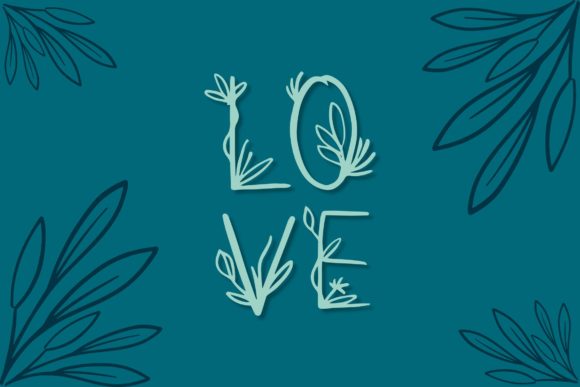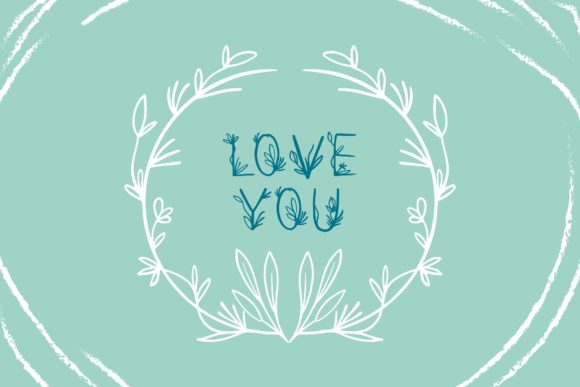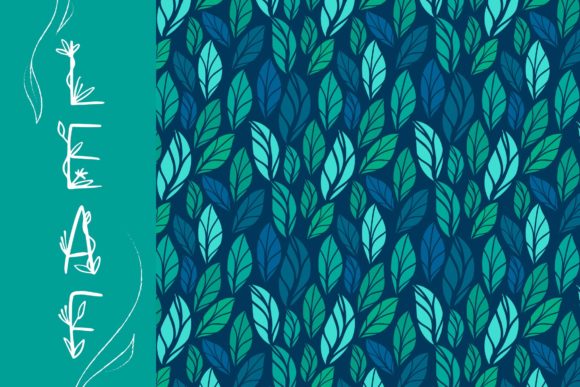
Foliagis Font – Free Download
Introduction to Foliagis Font
Foliagis is a beautiful display font with floral style.
You can see leaves and flourish elements on font characters This font is suitable for designing previews and covers, florist logo designs, shirt designs, and other graphic needs.
Key Features of Foliagis Font
Why Choose Foliagis Font?
Foliagis Font offers exceptional quality and versatility, making it a valuable addition to your design toolkit. Whether you’re creating for personal projects or commercial use, Foliagis Font delivers professional results.